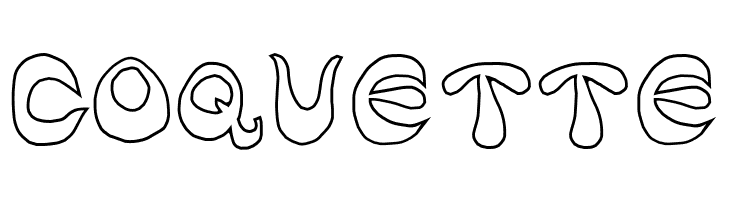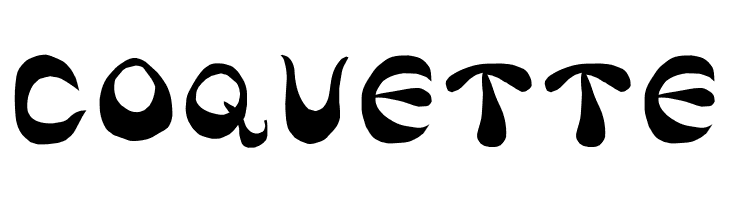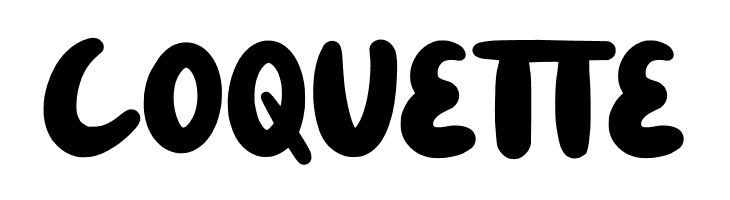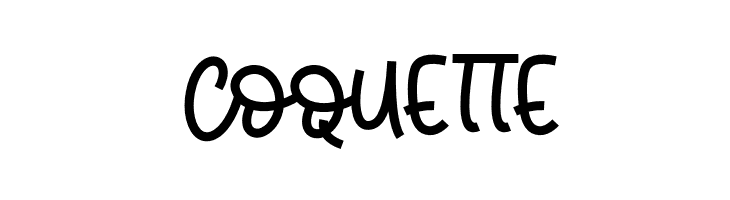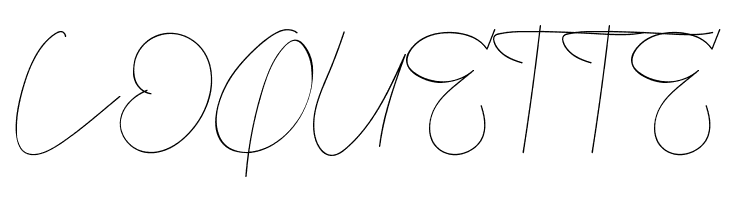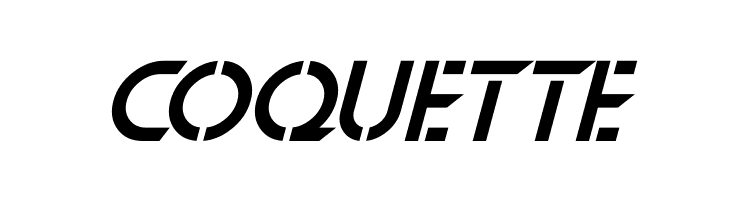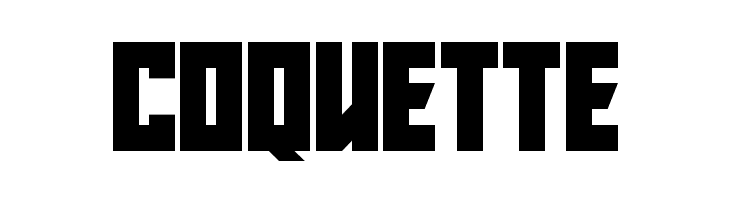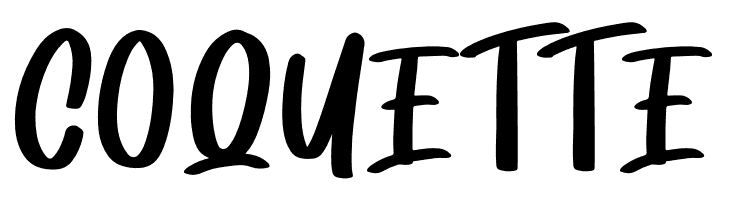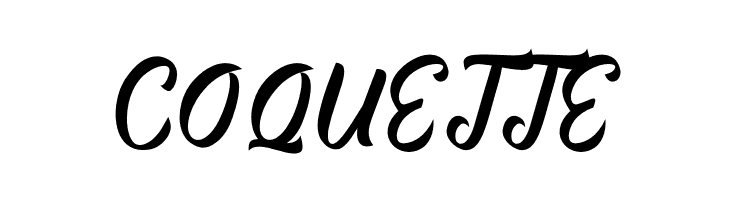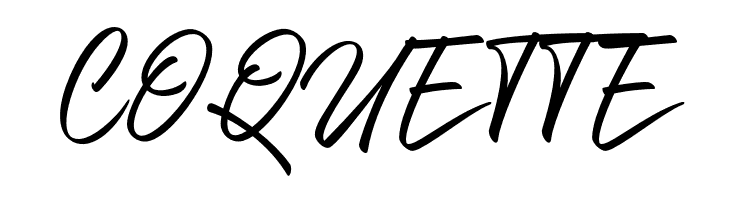
A futuristic italic font with sharp angles and high contrast, ideal for dynamic designs.
A distressed, grunge-style font with a rough, textured appearance.
A bold, geometric font with a futuristic and impactful design.
A bold, outlined font with a playful, retro aesthetic and hand-drawn quality.
A whimsical, decorative font with intricate swirls and a vintage, storybook feel.
A playful handwritten font with a casual and friendly style.
A bold, textured font with a distressed, grunge-like appearance.
A bold, handwritten font with playful, rounded strokes and a dynamic flow.
A fluid and elegant script font with smooth, flowing lines and cursive letterforms.
A dynamic and expressive script font with fluid, cursive letterforms.
A bold, flowing script font with a dynamic, handwritten style.
A bold, cursive handwritten font with dynamic and expressive strokes.
A bold, textured font with a handcrafted feel and strong presence.
An elegant and flowing script font with ornate uppercase and smooth lowercase letters.
A decorative and artistic font with abstract animal-like forms and flowing curves.
A delicate, flowing script font with thin, elegant lines and a modern calligraphic style.
A playful, handwritten script font with connected characters and moderate stroke thickness.
A dynamic and flowing script font with elegant curves and smooth connections.
A bold, angular typeface with a futuristic and dynamic style.
A playful, bold script font with a handwritten style.
A playful, handwritten font with smooth curves and a casual style.
A bold, decorative slab serif font with playful curls and a vintage-modern appeal.
A bold, angular font with a geometric and modern style.
Bold geometric sans-serif with rounded forms and modern style.
A modern, geometric font with a futuristic and structured design.
A modern, geometric font with rounded and angular elements, perfect for contemporary designs.
A bold, rounded font with a playful and energetic style.
A bold, playful font with rounded edges and a smooth, flowing style.
A bold, dripping font perfect for horror-themed designs.
A playful and flowing script font with a handwritten style.